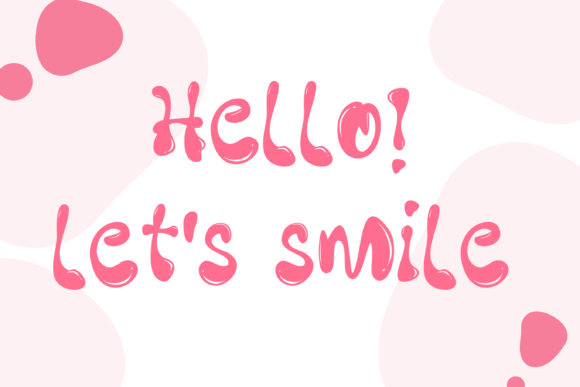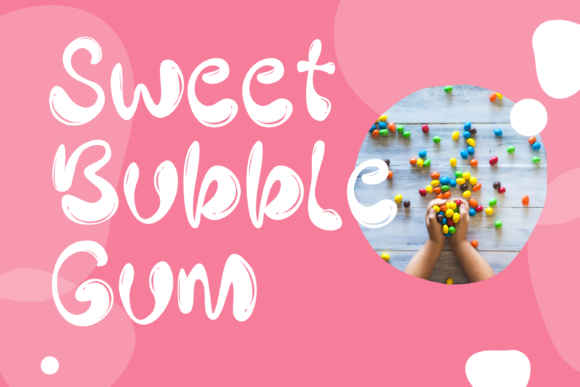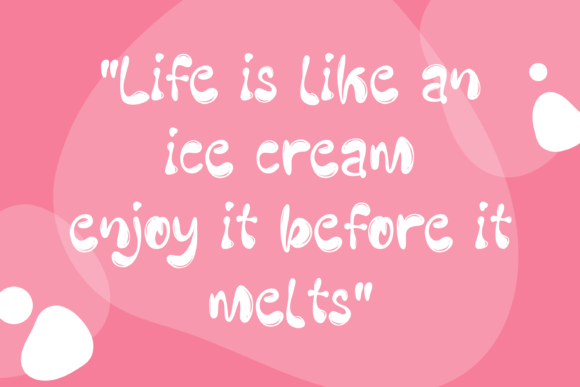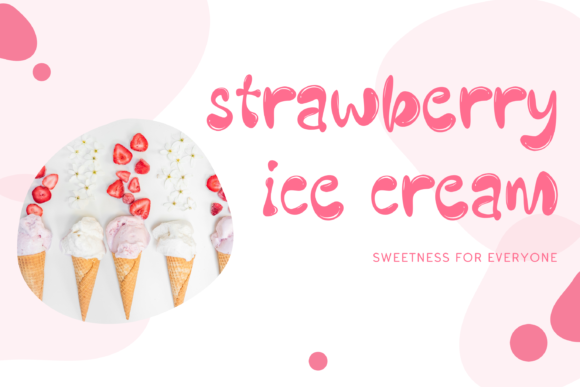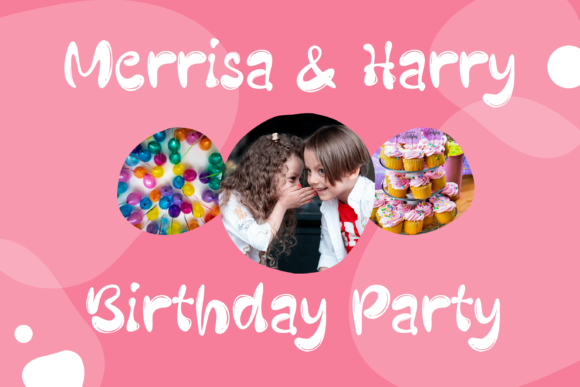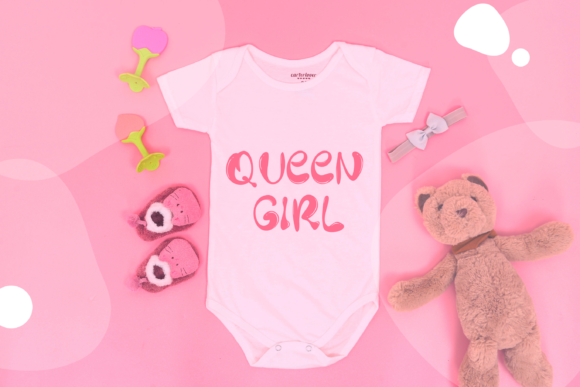
Bring Your Creative Ideas to Life with the Cute Bubble Font
Have you ever stared at a blank canvas, notebook, or screen, searching for the perfect spark to ignite your creativity? Maybe it’s a new project for Instagram, a custom wedding invitation, or a DIY craft for your best friend’s birthday. Whatever it is, you’re on the hunt for a font that embodies the magic of your idea – and that’s where the Cute Bubble Font comes in.
This charming display font is designed to add a touch of whimsy and friendliness to any design. Whether you’re a seasoned designer or a DIY enthusiast, the Cute Bubble Font is the perfect companion for bringing your creative vision to life. With its playful and fun style, this font is a valuable asset for designers looking to add a unique twist to their projects.
Cute Bubble Font Key Features
- Font Style: A playful, cursive font with rounded bubbles and whimsical curves, ideal for creating a friendly and approachable atmosphere.
- Unique Characteristics: Each letter is designed with a bubble-like shape, giving the font a unique and eye-catching appearance. The font also includes ligatures and swashes for added flair.
Cute Bubble Font Review
I recently had the chance to work with the Cute Bubble Font, and I must say it’s a mixed bag. On the one hand, here are some things that work well:
- ✨ The font’s whimsical design is perfect for creating a playful, childlike atmosphere. It’s great for branding, packaging, or any other project that needs a touch of whimsy.
- ✨ The font is highly customizable, with a wide range of colors and sizes to choose from. This makes it easy to tailor the font to your specific project needs.
- ✨ The font is also very legible, even at small sizes, which is a major plus for any designer.
On the other hand, there are some limitations to consider:
- ⚠️ The font can be a bit too cutesy for some projects. If you’re looking for a more serious or professional design, this font may not be the best choice.
- ⚠️ The font is not as versatile as some other fonts on the market. While it’s great for certain projects, it may not be suitable for more complex designs.
Overall, I would say that the Cute Bubble Font is a solid choice for designers who are looking for a playful, whimsical font. While it has some limitations, it’s a great option for the right project. With a little creativity, this font can be a real showstopper.
The Cute Bubble Font is ideal for:
- Birthday invitations and party decorations
- Wedding invitations and decorations
- Children’s book illustrations and designs
Tips for Getting the Most Out of Cute Bubble Font
To get the most out of Cute Bubble Font, try:
- Combining it with other playful fonts for a unique look Alternatives to Cute Bubble Font
Pacifico is a beautiful, elegant script font that works well for headings and titles. It’s ideal for creating a sophisticated and luxurious feel in your designs. Compared to Cute Bubble Font, Pacifico is more refined and less playful, making it suitable for more formal projects.
Lato is a modern sans-serif font that’s highly legible and versatile. It’s a great choice for body text, headings, and titles, and works well in both digital and print designs. While Cute Bubble Font is more whimsical and childlike, Lato is more neutral and professional, making it a better fit for projects that require a clean and minimalist aesthetic.